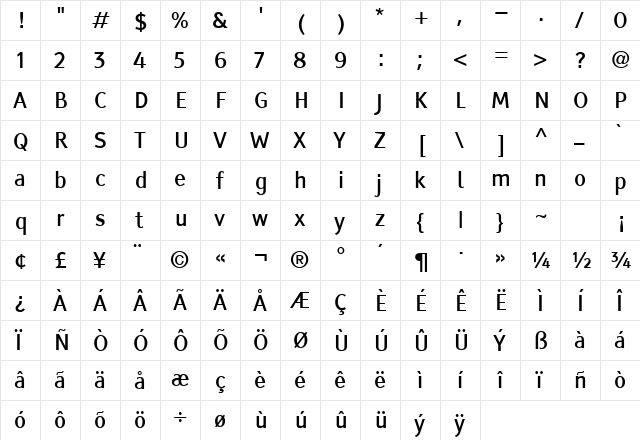
TiresiasScreenfont Regular
Design Context for TiresiasScreenfont Typeface
TiresiasScreenfont offers clean, dependable letterforms without strong stylistic allegiance, making it a practical choice for designers who need flexibility.